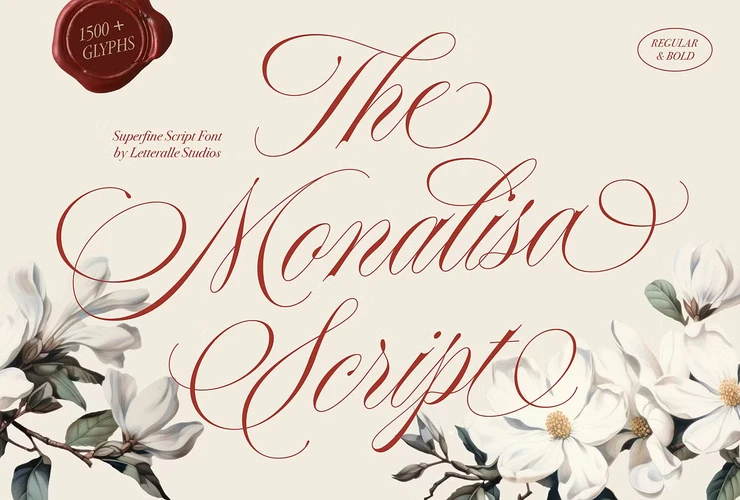
Unleash Elegance with Monalisa Script Font
Monalisa Script Font is the epitome of elegance and sophistication in the world of calligraphy. This beautifully crafted typeface is perfect for designers looking to add a touch of class and refinement to their projects. Whether you’re working on branding, social media posts, packaging, or wedding invitations, Monalisa Script offers the versatility and style needed to make your designs stand out.
Why Monalisa Script is a Must-Have
1. Exquisite DesignMonalisa Script is designed with a classic, feminine, and elegant touch, making it the ideal choice for projects that require a refined and sophisticated look. The script’s flowing lines and delicate curves evoke a sense of luxury, perfect for high-end branding and design.
2. Versatility Across ProjectsThis script font is not just about beauty; it’s also incredibly versatile. With both regular and bold versions available, Monalisa Script can be used for a wide range of applications, including logos, branding, ads, merchandise, social media posts, packaging, magazine covers, websites, and more. The font’s adaptability ensures that it can elevate any design project, no matter the context.
3. Extensive Glyph CollectionOne of the standout features of Monalisa Script is its extensive collection of glyphs. Each letter comes with multiple alternatives, allowing you to customize your text easily and creatively. Accessing these alternatives is simple—just add a number after the letter, such as G2, G3, or G4, to achieve the desired effect. This feature gives you the freedom to experiment and create truly unique typography.
5. Multilingual SupportWith multilingual support, Monalisa Script is ready to meet the needs of global projects. Whether you’re designing for an international audience or creating content in multiple languages, this font has you covered.
6. Ideal for Special OccasionsMonalisa Script is particularly well-suited for special occasions, such as wedding invitations and elegant event branding. The font’s classic calligraphy style adds a personal and luxurious touch, making any event feel even more special.
Perfect For:
Branding & Logos: Create timeless and elegant brand identities.
Social Media: Enhance your posts with a touch of class and style.
Packaging & Merchandise: Elevate your product presentation with sophisticated typography.
Wedding Invitations: Design beautiful and memorable invitations that capture the essence of your special day.
Monalisa Script Font is a superb choice for designers who want to infuse their projects with elegance, versatility, and a classic touch. Its extensive glyph collection, high-quality formats, and multilingual support make it a valuable addition to any designer’s toolkit. Download Monalisa Script today and start creating designs that truly shine with elegance and style.